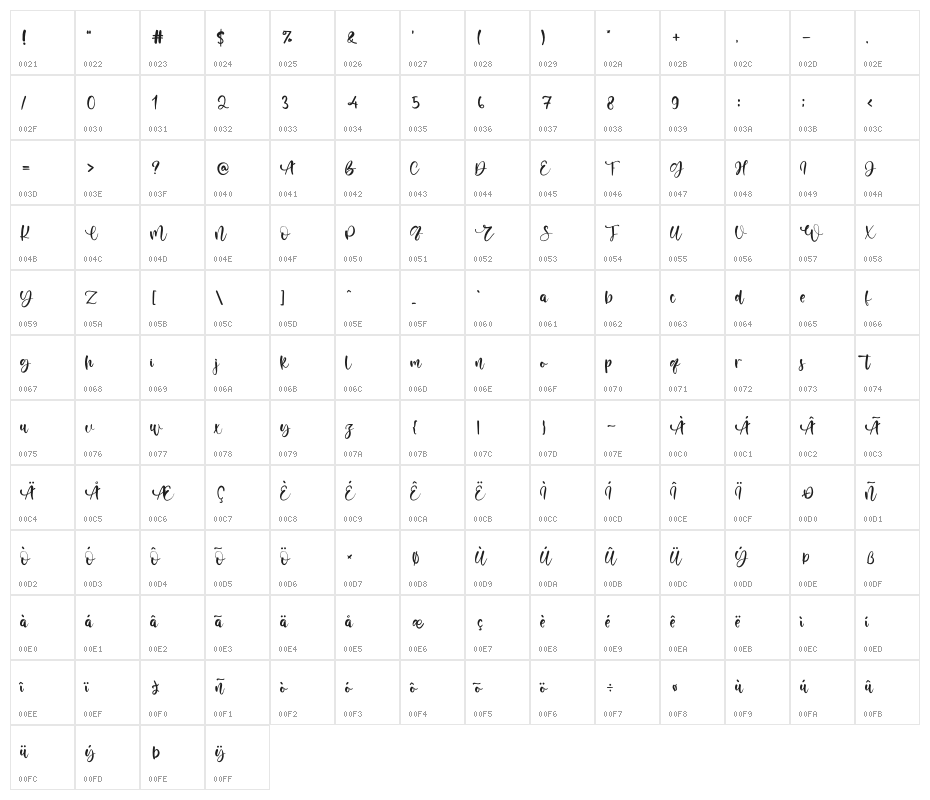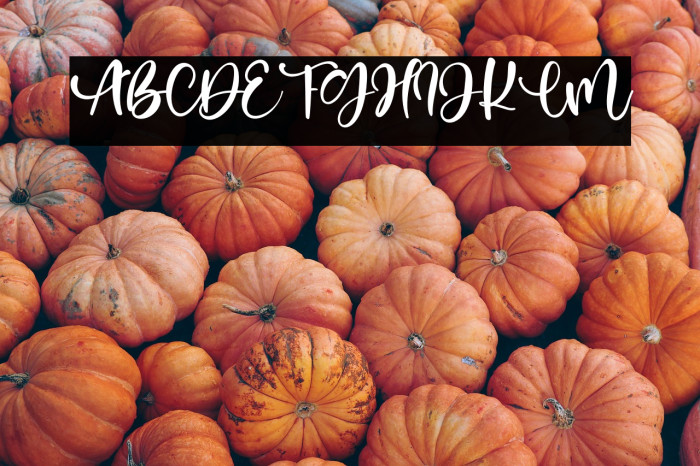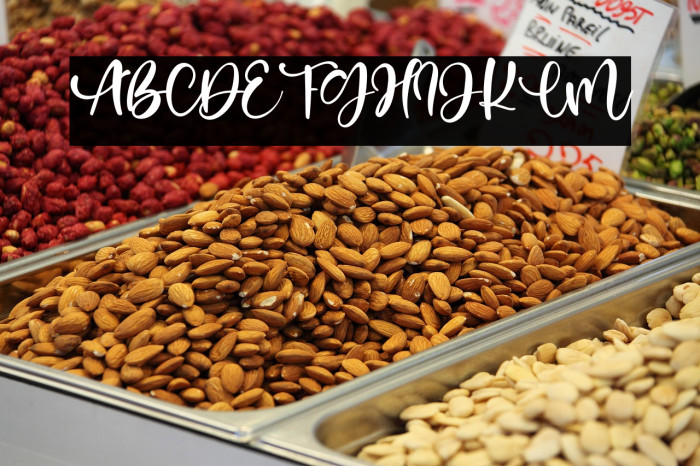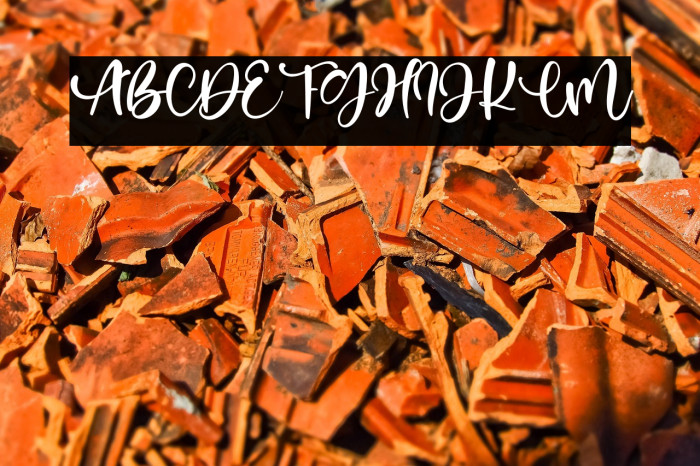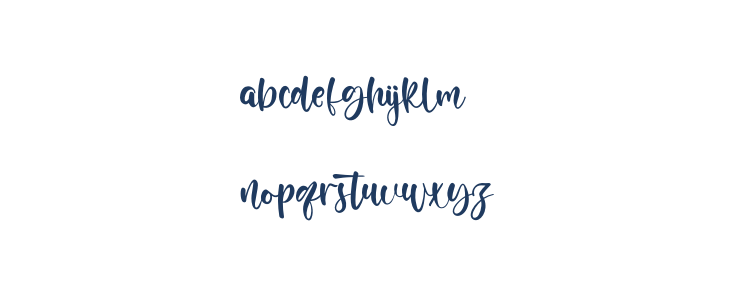
Renesmee Font
Renesmee Description
This font features a lively and flowing script style, characterized by its elegant and cursive letterforms. The uppercase letters are bold and expressive, with sweeping curves and loops that give a sense of movement and grace. The lowercase letters maintain a consistent style, with smooth connections and rounded edges that enhance readability. Numbers and special characters are designed to match the overall aesthetic, providing a cohesive look. The font's playful yet sophisticated appearance makes it suitable for a variety of creative applications.
| Use Case | Logos, Invitations, Decorative text |
| Proposed Projects | Ideal for wedding invitations, greeting cards, branding projects, and decorative quotes. |